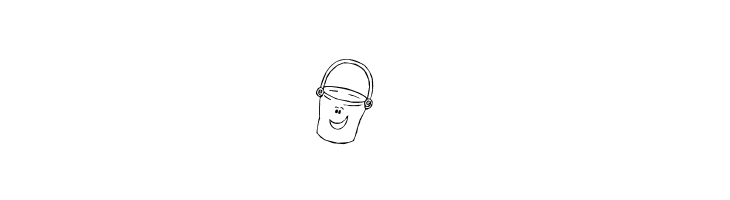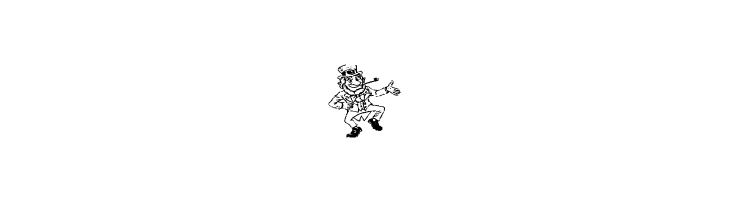
A playful dingbat font with school-themed icons.
Hand-drawn cartoon dingbat font with playful character illustrations.
St. Patrick's Day-themed dingbat font with festive illustrations.
A playful, chalkboard-style font with bold, hand-drawn letters in tilted squares.
Hand-drawn educational and academic-themed icon set.
Decorative illustrated portraits of American presidents with nameplates.
A novelty font made up of assorted decorative frame outlines.
Hand-drawn decorative frames and banners with a distressed texture.
Playful decorative dingbat set with frames, arrows, and handwritten words.
Ornate decorative frames and banners in playful styles.